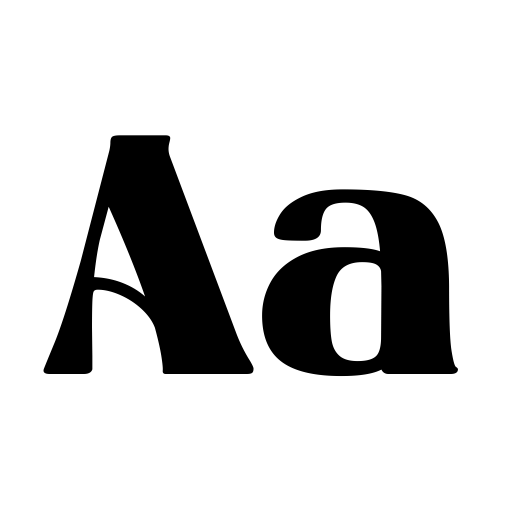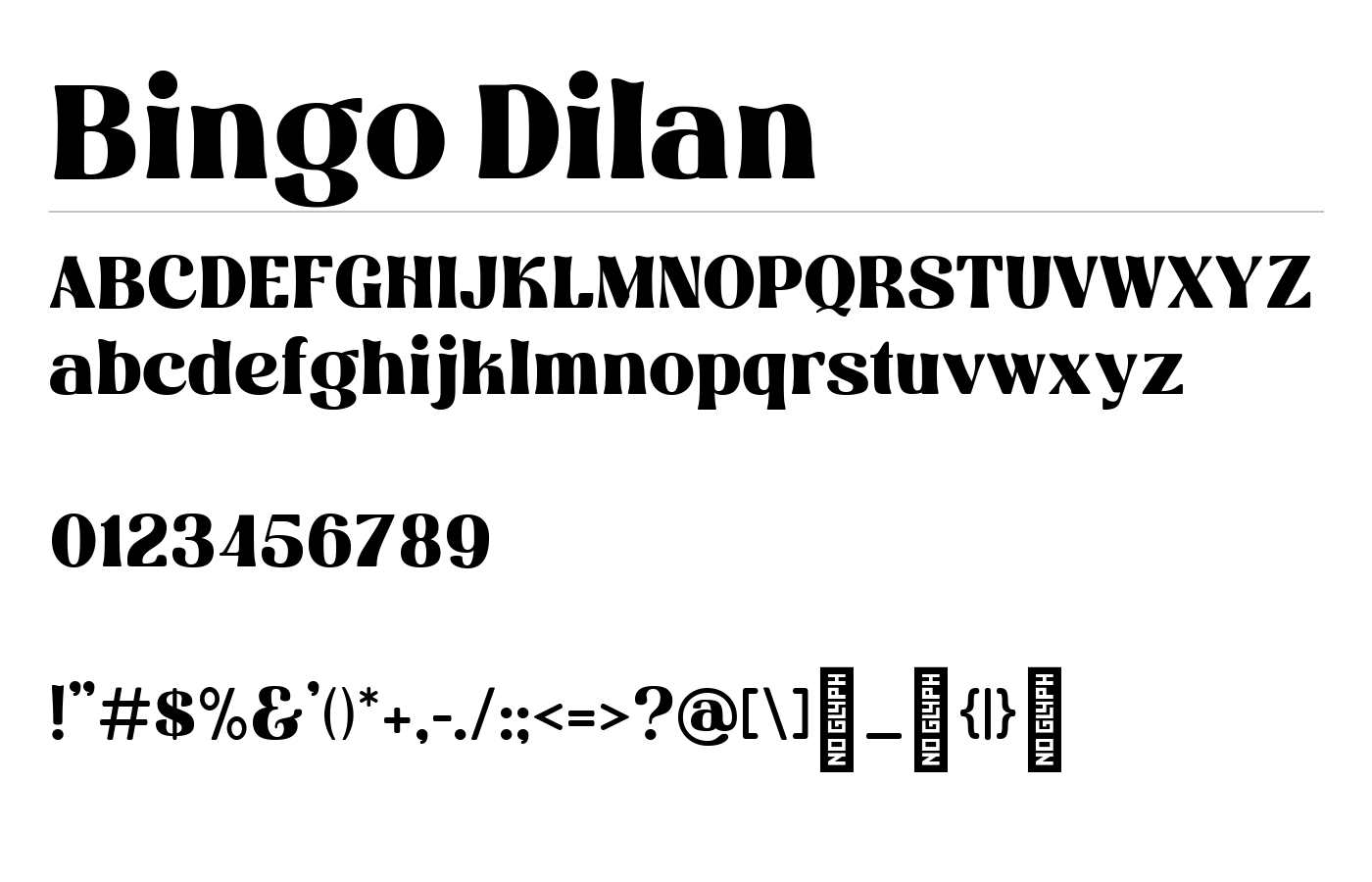
Bingo Dilan is a bold serif font with a strong, slightly condensed structure and moderate stroke contrast that gives it a confident and vintage-inspired feel. Its unique letterforms, such as the distinctive curves on the lowercase "g" and the playful tail on the uppercase "Q," add personality while maintaining readability. This font works perfectly for headlines, logos, and branding that seek a classic yet lively look with a touch of retro charm.
Bingo Dilan Font
About Bingo Dilan Font